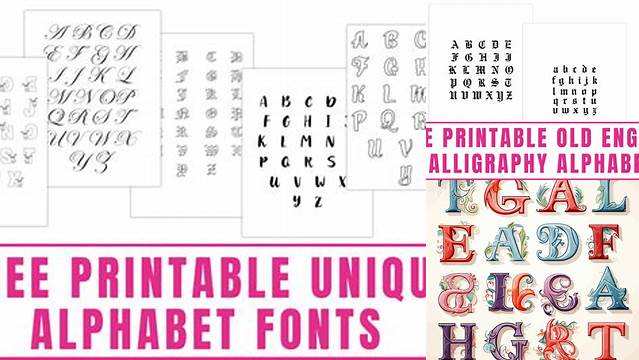
Create Unique English Alphabet Fonts Online
Hey guys! Let's dive into the awesome world of English alphabet fonts styles generator. It's all about creating those cool, unique fonts you see everywhere, from websites to posters, and even your own personal projects. This article will walk you through everything you need to know, from the basics to more advanced techniques, so you can start generating your own amazing fonts.
Unleashing Your Creativity with an English Alphabet Font Styles Generator
Okay, so you're probably thinking, "What exactly can I do with an English alphabet font styles generator?" Well, the possibilities are pretty much endless! Think about it: you can design fonts for your personal brand, make your social media posts pop, or even create fonts for a website or app. The cool part is, you don't need to be a design expert to get started. There are tons of user-friendly tools out there that make the process super easy and fun. You'll find yourself experimenting with different styles, shapes, and effects to create something truly unique. You can also think about how these generators can help you elevate your designs or create unique lettering for your projects. Maybe you're working on a logo and need a custom font to match your brand's personality. Or perhaps you're designing a website and want to use a font that reflects your brand's values. The generator is like a magic wand, giving you the power to bring your creative visions to life. You can play around with serif fonts, sans-serif fonts, and even get into some more experimental styles. You can also try out different weights and sizes to see what looks best. The key is to experiment and have fun with it! The best part is that you don't need expensive software or advanced skills to begin. Many of these tools are available online and are super easy to use, making them ideal for both beginners and experienced designers alike. This accessibility allows you to unleash your creativity and customize fonts. You are not limited by pre-made options, but rather empowered to express your vision. Whether you're a budding designer or just someone who loves typography, an English alphabet font styles generator is your gateway to a world of creative possibilities.
Discovering the Best English Alphabet Font Styles Generators Online
So, where do you find these amazing English alphabet font styles generators? Lucky for you, the internet is packed with them! There are several great options available, each offering its own set of features and advantages. Some are free, while others offer premium features for a fee. When choosing a generator, consider what you need. If you're a beginner, look for something with an easy-to-use interface and plenty of tutorials. If you're more experienced, you might want a generator that offers more advanced customization options. Some popular choices include FontStruct, a web-based tool that lets you build your own fonts from scratch, and Canva, which offers a range of font customization options within its design platform. There are also more specialized tools that offer unique features, such as the ability to generate fonts based on hand-drawn sketches or to customize existing fonts with your own personal touch. The best generator for you will depend on your individual needs and preferences, so it's worth exploring a few different options before settling on one. You should also think about what your project's needs are. Are you designing for the web, or do you need fonts that can be used in print? Some generators are better suited for certain types of projects than others. Also, remember to check the licensing terms for any fonts you create, especially if you plan to use them for commercial purposes. Some fonts may be free for personal use but require a license for commercial use. Finally, remember to experiment and have fun with the process. Generating your own fonts can be a great way to unleash your creativity and add a unique touch to your designs. With the right tools and a little bit of practice, you can create fonts that are truly your own.
Choosing the Right English Alphabet Font Style Generator for Your Needs
Alright, now that you know the basics, let's talk about how to choose the perfect English alphabet font style generator for you. The first thing to consider is your budget. There are plenty of free options available, which are perfect for beginners or anyone on a tight budget. These free generators usually offer a good range of features, allowing you to experiment with different styles and customize existing fonts. However, they may have some limitations, such as a limited number of font styles or fewer customization options. If you're willing to spend a bit of money, you'll find a whole world of premium generators with advanced features. These paid options often offer more flexibility, allowing you to create more complex and detailed fonts. Some might include features like advanced kerning controls, support for OpenType features, and the ability to generate fonts in multiple formats. After deciding on a budget, you'll want to consider the complexity of the generator. If you're a complete beginner, you'll want to start with a user-friendly tool that is easy to navigate. Look for a generator with a simple interface, clear instructions, and plenty of tutorials. As you become more experienced, you can move on to more advanced generators with more complex features. The next thing to think about is the kind of fonts you want to create. Some generators specialize in certain types of fonts, such as handwriting fonts, display fonts, or technical fonts. Make sure the generator you choose offers the styles you're interested in. Consider other important factors. How easy is it to download and install the fonts? Does the generator support the file formats you need? Also, think about the availability of customer support. This is especially important if you're new to font design and might need help along the way. With a little research, you'll be able to find the perfect generator. It's all about finding the right tools to bring your font visions to life!
Exploring Popular English Alphabet Font Styles
Let's get down to the nitty-gritty! When using an English alphabet font styles generator, you'll quickly realize there's a whole world of styles to explore. Some fonts are classics, while others are more modern and experimental. Understanding these styles will help you choose the perfect font for your project. First up, we have serif fonts. These fonts are characterized by the small decorative strokes, or serifs, at the end of each letter. They're often seen as traditional, elegant, and readable, making them a popular choice for body text. Times New Roman and Georgia are examples of serif fonts. Then there are sans-serif fonts.